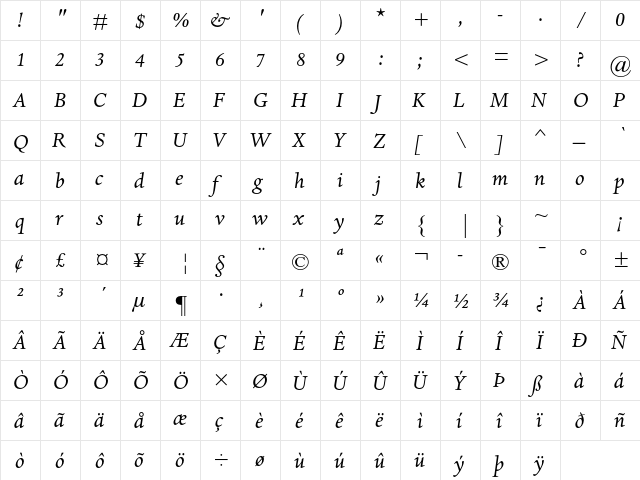
Dante MT Std Italic
| Designer | Giovanni Mardersteig |
Design Context for Dante MT Std Typeface
Dante MT Std is a composed and adaptable typeface that performs quietly and consistently across a wide range of design contexts. The dynamic lean of this cut emphasises speed and emphasis in any layout.
Pro Tip: Try Dante MT Std for annotation and caption copy alongside an upright companion — the contrast in angle creates a dynamic but ordered typographic system.